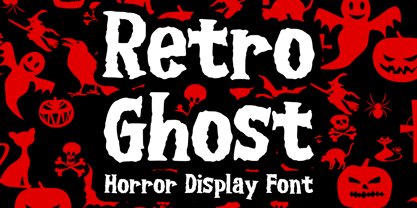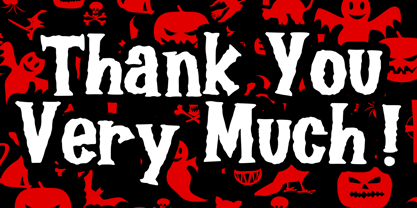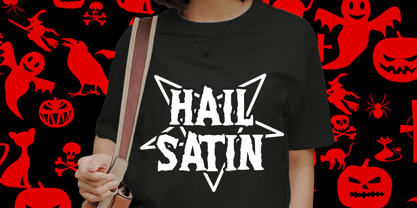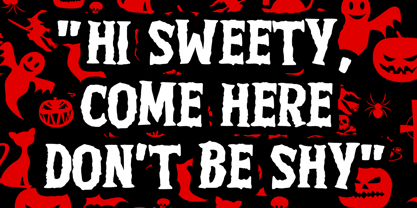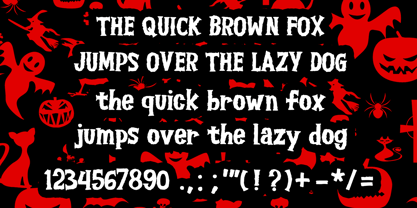
Retro Ghost
The Retro Ghost Font Family was designed by Gabriel Valentinus and published by Mvmet. Retro Ghost contains 1 styles. More about this family
Retro Ghost is a whimsical, bold, hand-drawn font that captures the playful spirit of Halloween. Ideal for a variety of spooky applications, this font is perfect for designing merchandise like t-shirts and clothing, creating chilling book covers, or adding flair to Halloween party invitations. Use it for greeting cards, stickers, posters, and banners, or in any project that requires a fun and festive horror aesthetic. Its unique style ensures it stands out, making it a fantastic choice for branding and seasonal promotions.
Designers: Gabriel Valentinus
Foundry: Mvmet